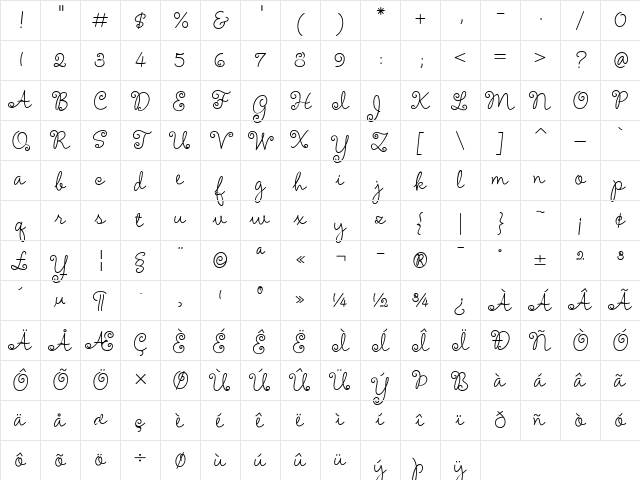
Amelie Regular Free Font
Amelie Regular
Foundry: TYPADELIC FONTS
Designer: Ronna Penner
Design Context for Amelie
Amelie is a composed and adaptable typeface that performs quietly and consistently across a wide range of design contexts.